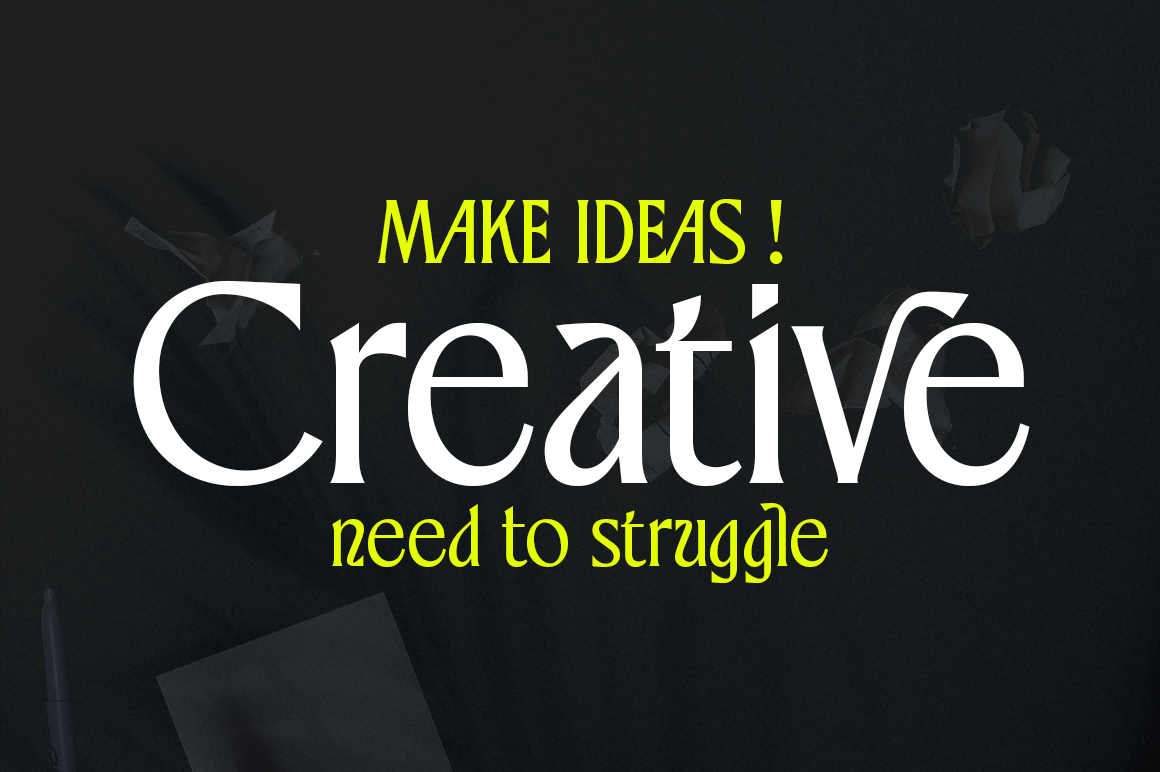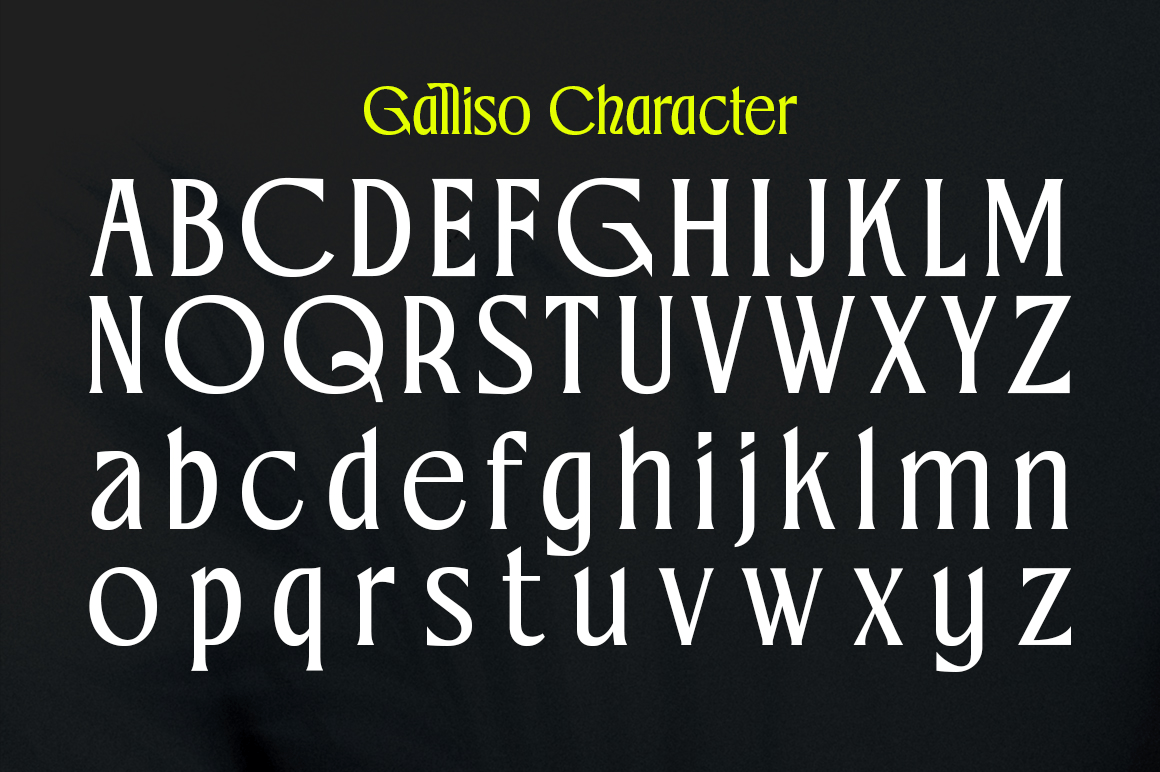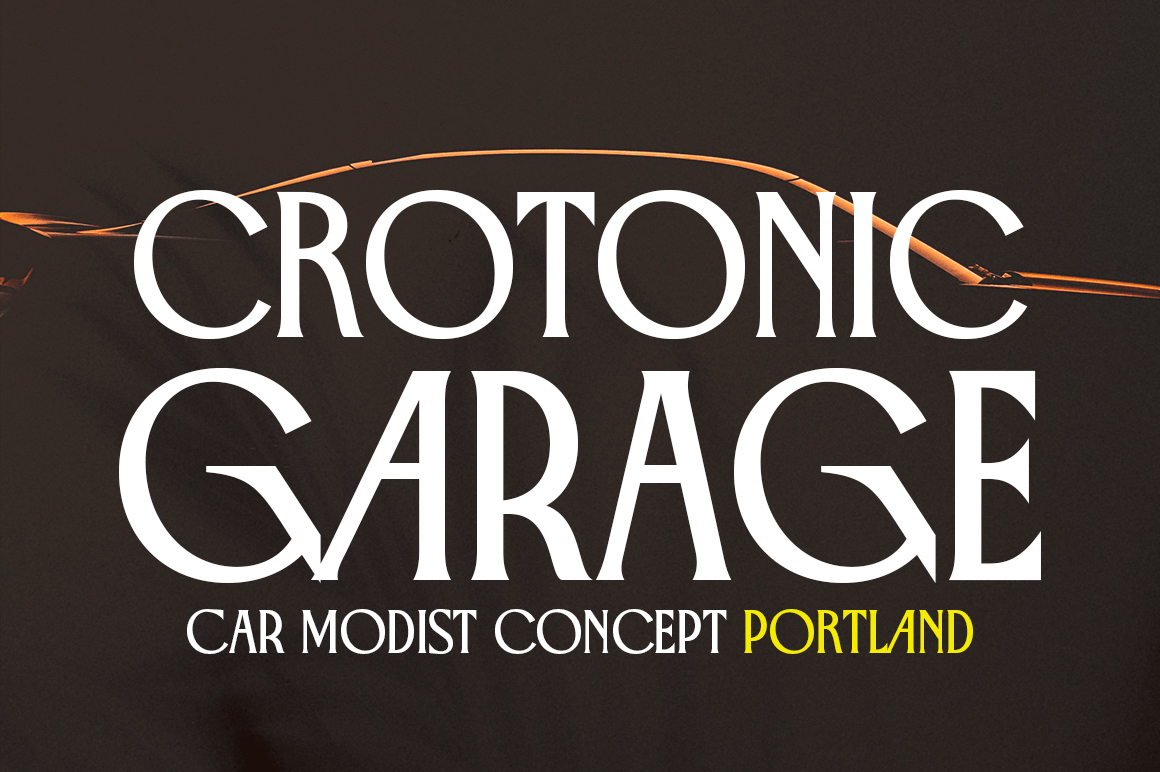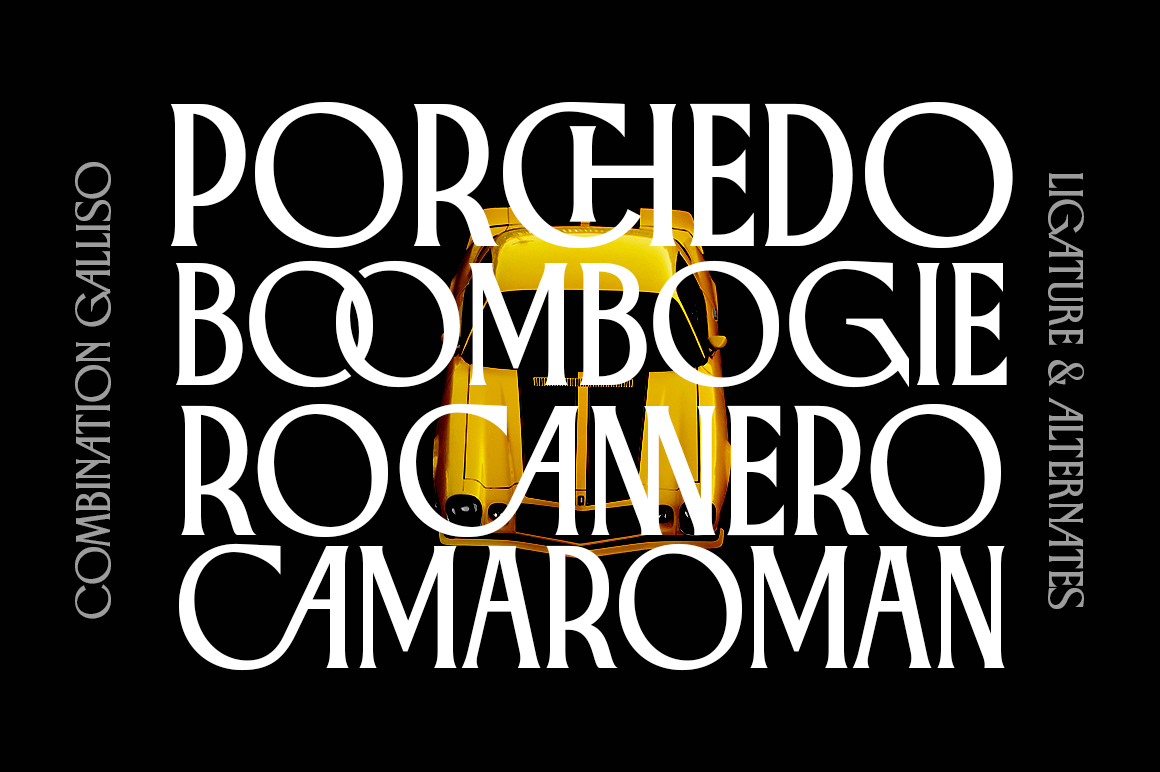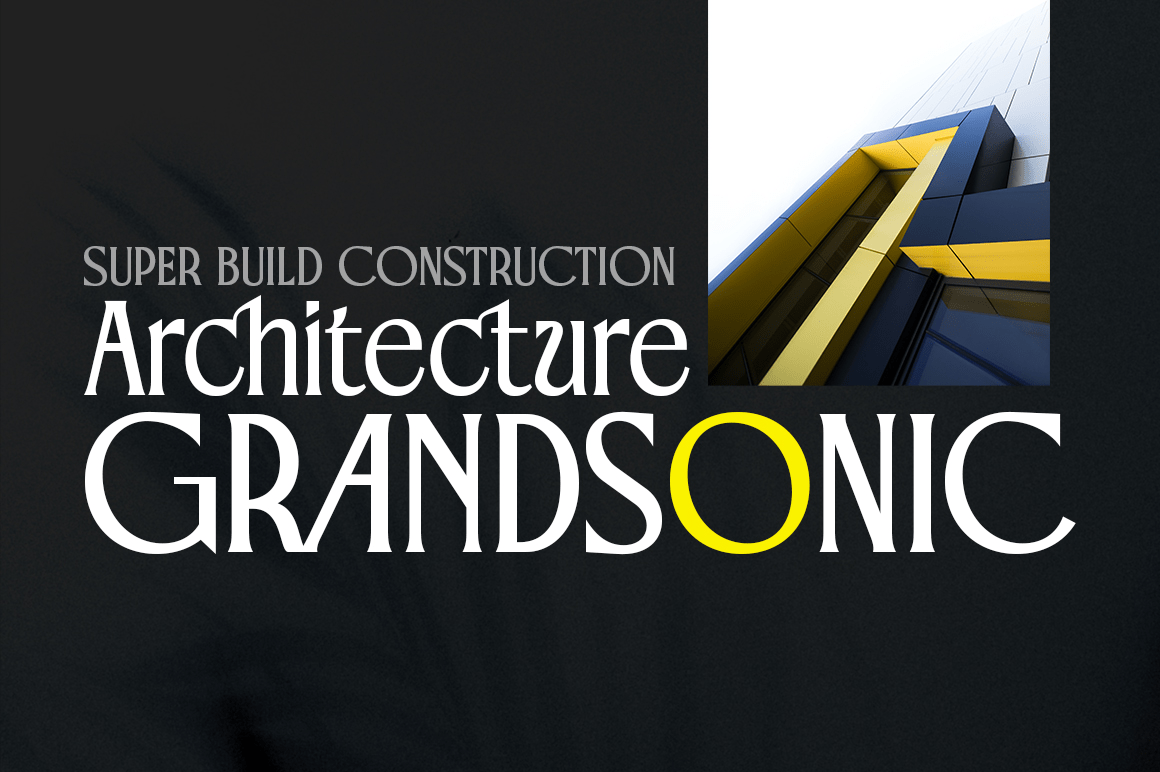
About Galliso
Galliso is a serif font with a classic yet modern style with subtle curves and a beautiful binding, consisting of regular and italic versions with four types. allowing for a very sophisticated and contemporary typographical approach and the unique look…